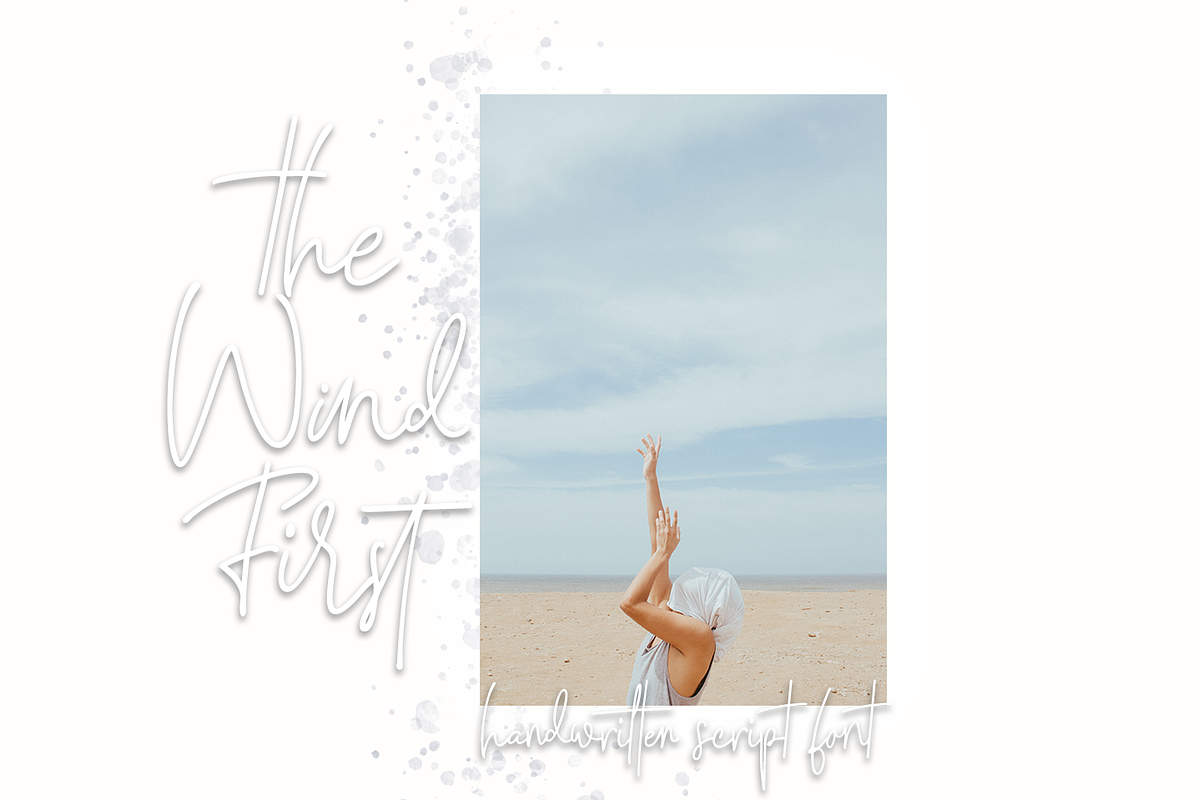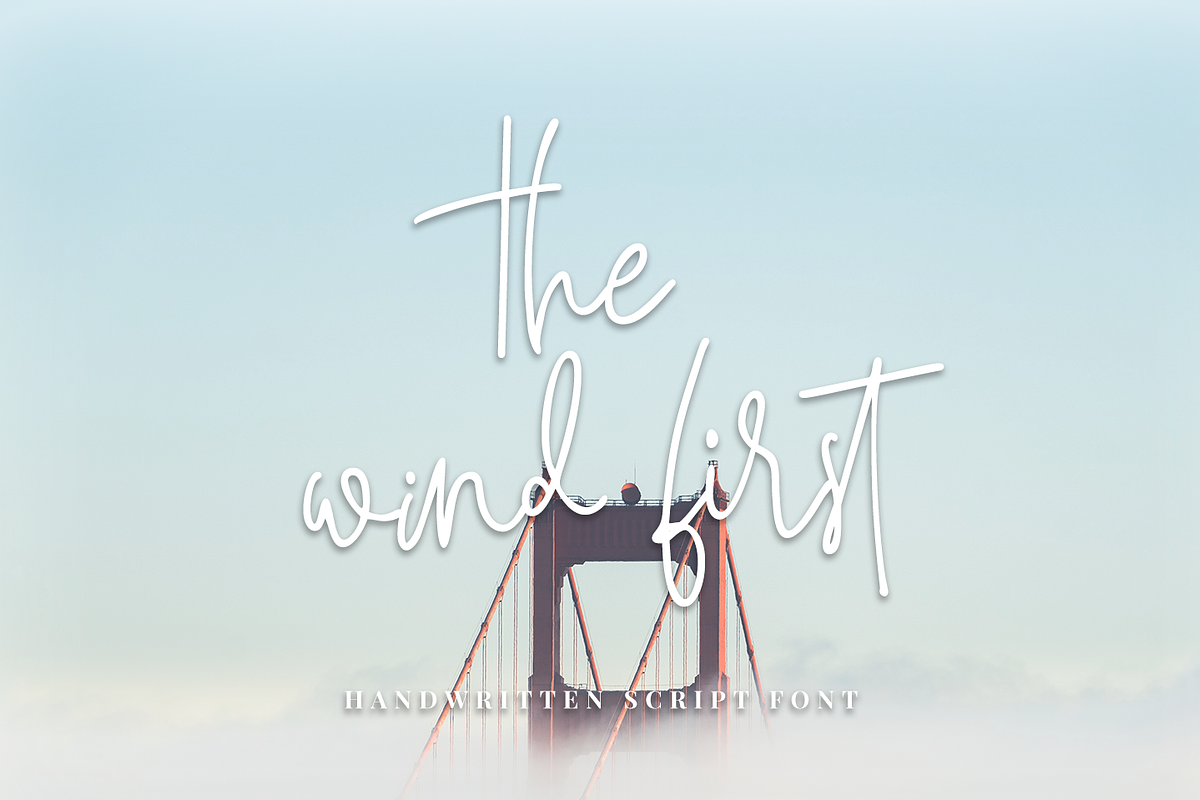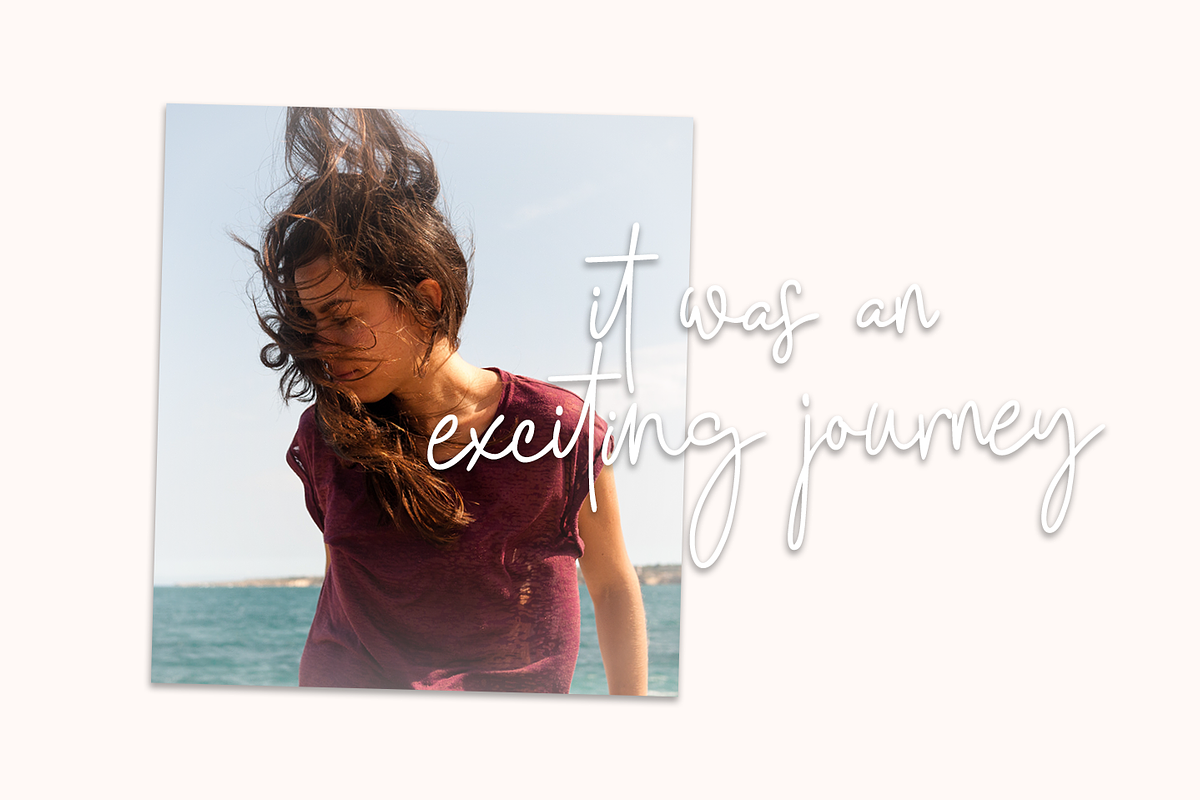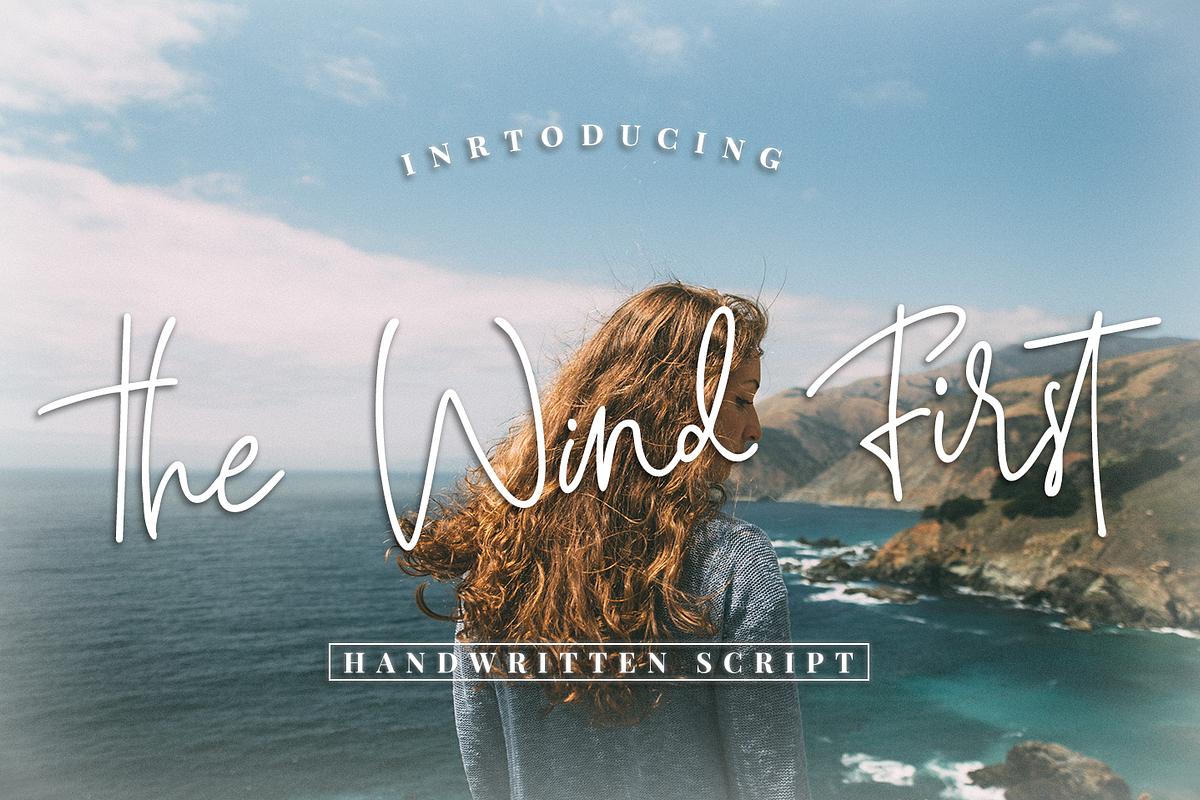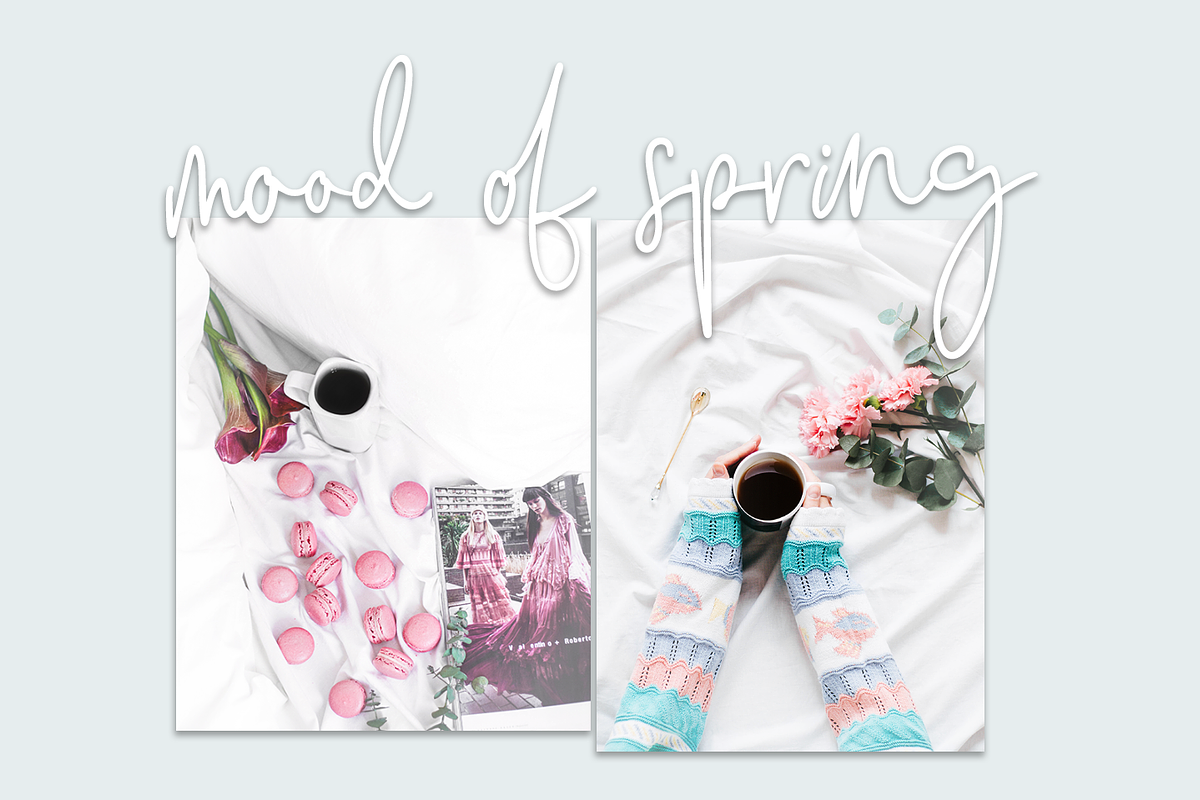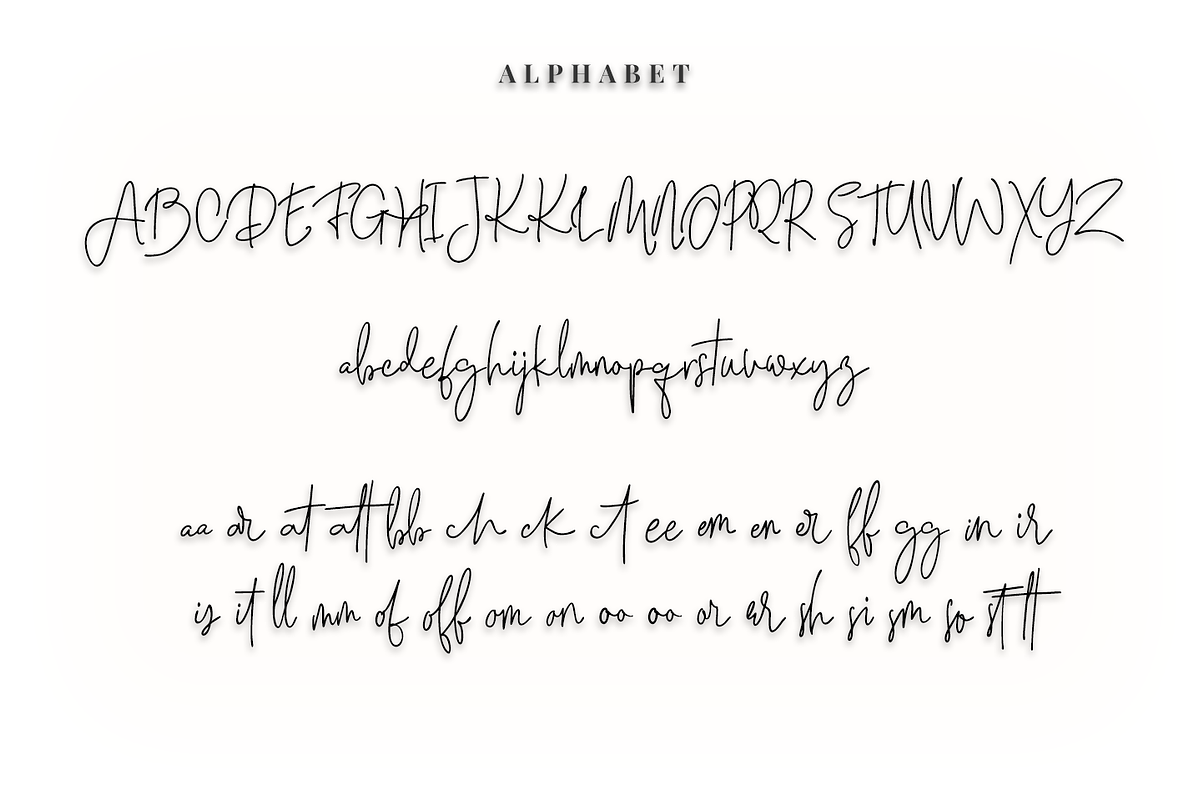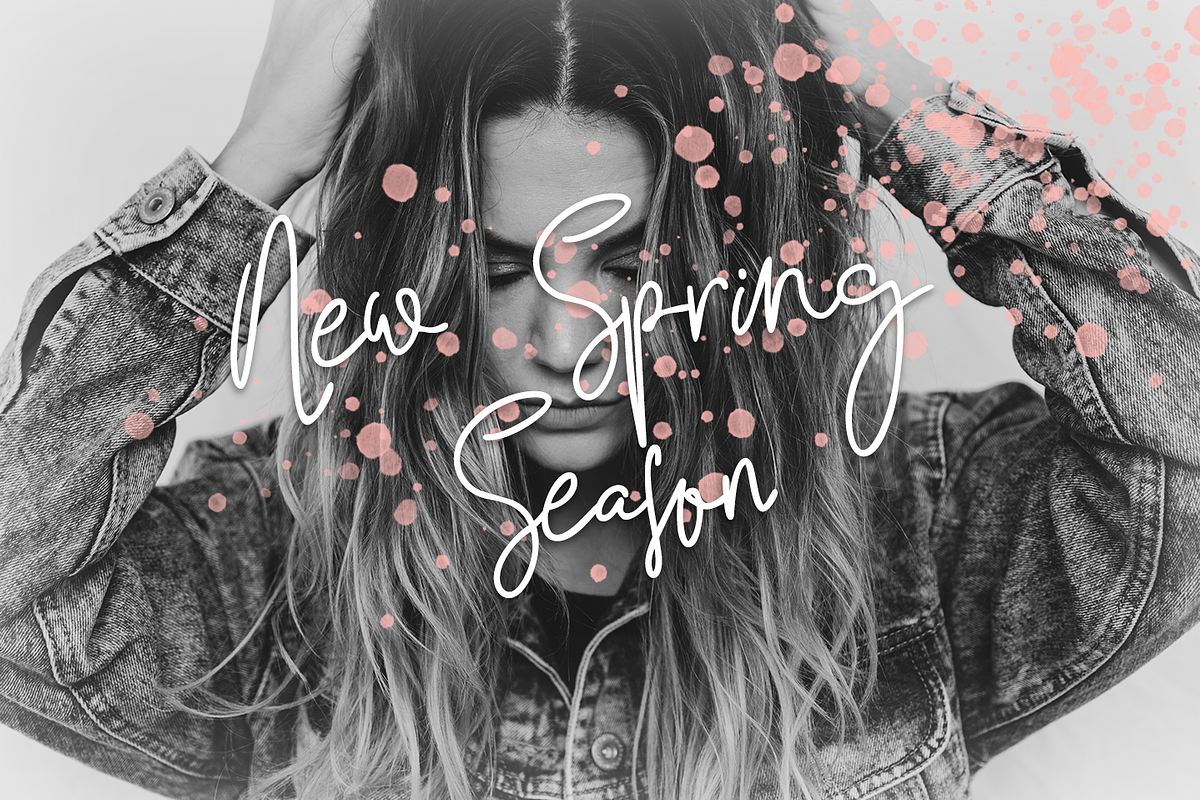
The Wind First - Script font
The Wind First - a new fresh handmade calligraphy font.
Very suitable for greeting cards, branding materials, business cards, quotes, posters, and more!This font are perfect for wedding postcard. Or you can create perfect and unique design of your logo, blog, stationery, marketing, magazines and more :)
aa ar at at tb bc hc kc te ee me ne rf fg gi ni ri si tl lm mo fo ff om on oo or rr sh si sm so st tt